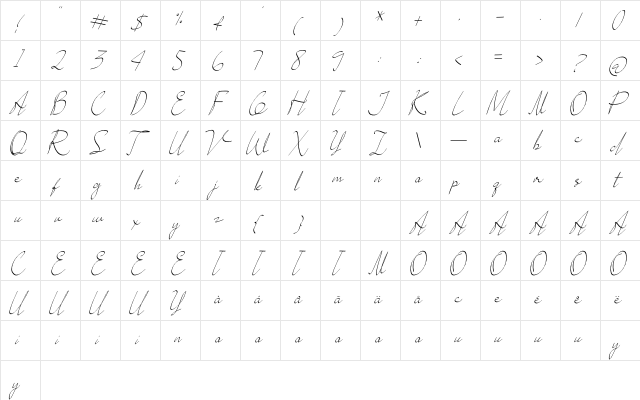
Rexland Regular
| Foundry | Namara Creative Studio |
| Designer | Eef Apringga | Namara Creative Studio |
Design Context for Rexland Typeface
Rexland is a composed and adaptable typeface that performs quietly and consistently across a wide range of design contexts.